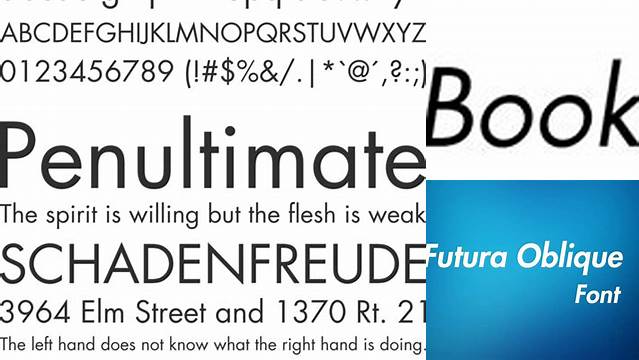
Futura Book Oblique Font: Free Download Guide
Hey guys, ever stumbled upon a font that just screams cool and modern? That’s probably Futura Book Oblique for you! It’s a typeface that’s been around for ages but still feels super fresh and relevant. We're talking about a font that’s got style, class, and a whole lot of personality. Whether you’re a graphic designer, a student working on a project, or just someone who appreciates good typography, you've likely seen Futura Book Oblique popping up everywhere from album covers to minimalist websites. Its distinctive italic slant and clean lines make it a go-to for designers looking to add a touch of sophistication and forward-thinking flair to their work. It’s not just a font; it's a statement. Its geometric construction, pioneered by Paul Renner in the late 1920s, gives it a unique character that blends classic readability with a distinctly modern aesthetic. The 'Book' weight offers a balanced presence, not too heavy, not too light, making it incredibly versatile. And the 'Oblique' style? That’s where the magic happens, adding a dynamic, energetic tilt that injects life into any design. It’s the kind of font that can make a simple quote look profound or a headline grab attention instantly. So, if you're looking to elevate your next design project and need a typeface that's both timeless and contemporary, Futura Book Oblique is definitely worth exploring. Let's dive into why this font is so popular and how you can get your hands on it for your projects.
Understanding Futura Book Oblique's Unique Charm
Alright, so what makes Futura Book Oblique such a standout, you ask? It all boils down to its design roots and how it translates into visual appeal. Futura itself is a masterpiece of geometric sans-serif design, inspired by the Bauhaus movement. Think pure shapes, clean lines, and a rational, almost mathematical approach to letterforms. The 'Book' weight is carefully calibrated to strike a perfect balance between legibility and presence, ensuring it doesn’t overpower other elements while still maintaining a strong identity. It's the kind of weight that works beautifully in both large headlines and smaller blocks of text, offering a pleasing reading experience. Now, when you introduce the 'Oblique' style, things get even more interesting. Unlike a true italic, which often has unique letterforms, an oblique is essentially a mechanically slanted version of the upright roman. This gives Futura Book Oblique a consistent feel with its regular counterpart, but with an added sense of motion and dynamism. This subtle, yet significant, difference can dramatically alter the mood of your text. It conveys energy, speed, and a sense of progressive thinking. Imagine a website’s navigation menu in Futura Book Oblique – it feels contemporary and inviting. Or perhaps a product description that needs a touch of sophistication; the oblique can provide that without being too flashy. Its geometric precision ensures that even when slanted, the letters maintain their clarity, preventing any awkward distortion. This makes it incredibly versatile for a wide range of applications, from branding and editorial design to digital interfaces and packaging. The clean, uncluttered nature of Futura Book Oblique also makes it incredibly adaptable to different color palettes and background textures, allowing designers ample creative freedom. It’s a font that doesn’t demand attention aggressively but rather invites it with its elegant simplicity and subtle vigor. Its historical context adds another layer of appreciation; born from a desire for a modern, universal typeface, it continues to fulfill that vision today, proving its enduring appeal and functional brilliance across decades.
Exploring the Geometric Brilliance of Futura
Delving deeper into the essence of Futura, we’re talking about a font family that’s practically the blueprint for modern geometric sans-serifs. Created by the visionary designer Paul Renner in 1927, Futura was born from the spirit of the Bauhaus school – a place obsessed with functionality, simplicity, and the beauty of pure geometric forms. Renner’s goal was to create a typeface that was truly modern, devoid of historical ornamentation, and perfectly suited for the industrial age. He achieved this by basing his letterforms on basic shapes like circles, squares, and triangles. Look closely at the 'O' – it’s a near-perfect circle. The 'A' and 'N' are constructed with clean, straight lines. This deliberate use of geometric purity gives Futura its distinctive, almost architectural quality. It feels structured, rational, and undeniably clean. The 'Book' weight, as we’ve touched on, provides a medium-bodied presence that’s incredibly versatile. It’s not too heavy for body text, nor too light for headlines, making it a real workhorse. This balanced weight ensures readability even in extended passages, while still possessing enough character to stand out. When paired with its oblique counterpart, the geometric foundation remains evident, ensuring that the slanted version inherits the same clarity and modern appeal. The geometric brilliance of Futura lies in its ability to be both aesthetically striking and highly functional. It’s a font that communicates efficiency and progress. This inherent structure makes it incredibly adaptable across various media and applications. Whether it’s printed matter, digital interfaces, or signage, the geometric precision of Futura ensures consistent legibility and visual impact. Its influence on subsequent typeface designs is immeasurable, solidifying its status as a cornerstone of modern typography. The Futura family, with its various weights and styles, offers a comprehensive toolkit for designers, but the Book Oblique often holds a special place for its unique blend of elegance and dynamism, all rooted in that foundational geometric perfection.
Why Futura Book Oblique is a Designer's Dream
Guys, let's be real: designers love fonts that are versatile, stylish, and easy to work with. Futura Book Oblique ticks all those boxes and then some. Its clean, geometric structure means it plays well with other design elements. It doesn't hog the spotlight but instead enhances the overall composition. The 'Book' weight is that sweet spot – substantial enough for impact, but refined enough for subtlety. This makes it perfect for everything from high-fashion brand logos to minimalist wedding invitations. And the 'Oblique' version? Oh man, that’s where the real magic happens. It adds a sense of urgency, sophistication, and a touch of playful energy without sacrificing readability. Think of it as a confident wink in text form. It’s fantastic for call-to-action buttons on a website, pulling pull quotes in an article, or even just adding a bit of flair to a presentation slide. The subtle slant feels dynamic and modern, suggesting forward movement and innovation. Unlike some more complex italics, the oblique nature of Futura Book Oblique keeps the letterforms clean and easily decipherable, which is crucial for maintaining a smooth reading experience. This means you can use it generously without worrying about confusing your audience. Plus, its historical significance adds a layer of credibility and timelessness. It’s a font that’s been tested by time and proven its worth across countless design trends. So, when you choose Futura Book Oblique, you're not just picking a font; you're choosing a piece of design history that continues to be relevant and impactful. It’s the kind of font that makes a design feel complete, polished, and effortlessly chic. It’s a tool that empowers creatives to communicate their message with clarity and style, making it an indispensable asset in any designer's toolkit. Its ability to adapt to both digital and print mediums seamlessly further cements its status as a designer's dream typeface. The inherent harmony within the Futura family means that Book Oblique pairs beautifully with its roman counterpart, creating a cohesive and professional look. It’s the reliable friend in the font world that always delivers.
The Versatility of Oblique Styles in Design
Let’s talk about the power of the oblique, especially when it comes to a font like Futura Book Oblique. So, what exactly is an oblique, anyway? Unlike a true italic, which is often drawn with entirely new letterforms and a more organic, calligraphic feel, an oblique is usually just a mechanically slanted version of the regular typeface. This might sound simple, but the effect can be surprisingly impactful! For Futura Book Oblique, this means you get that stylish, forward-leaning look without losing the clean, geometric essence of the original design. It’s like the font is leaning in to tell you something important, but in a super cool, effortless way. This versatility is a huge win for designers. You can use the oblique to create emphasis, add a sense of movement, or simply introduce a bit of visual contrast within a block of text. For instance, highlighting a key term or a short phrase in Futura Book Oblique can draw the reader's eye immediately, making your content more engaging. It’s particularly effective in digital design – think of call-to-action buttons, navigation links, or even subtle accents in user interfaces. The slant adds a dynamic quality that feels modern and responsive. In print, it’s perfect for pull quotes, bylines, or any element that needs to stand out slightly from the main body text. The beauty of the oblique style in a geometric font like Futura is that it maintains legibility. The letters don't become too distorted or hard to read, which is a common issue with some heavily slanted fonts. This makes Futura Book Oblique a reliable choice when you need that extra visual kick without compromising clarity. It’s a way to add personality and sophistication to your designs, making them feel more polished and professional. Whether you're designing a brochure, a website, or a social media graphic, the oblique style offers a subtle yet powerful tool to enhance your message and captivate your audience. It's about adding that extra layer of finesse that makes your design truly sing, proving that sometimes, a simple slant can make all the difference.
Best Practices for Using Futura Book Oblique